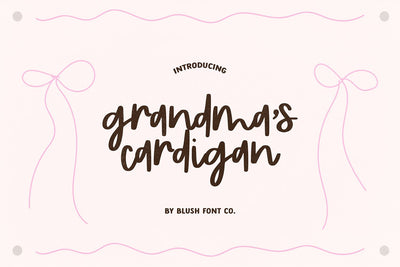
Grandma's Cardigan Brush Script Font
"Grandma's Cardigan" signature brush script font.
This font is a whimsical brush font that is perfect for social media or crafty projects.